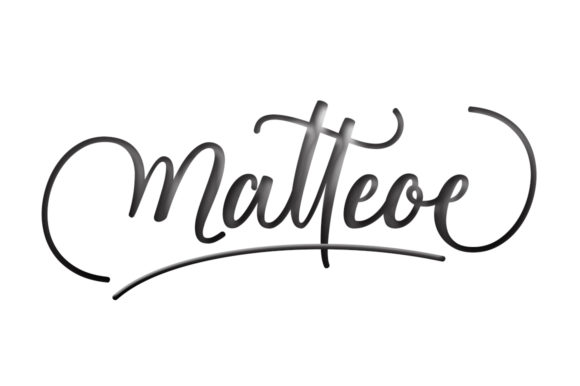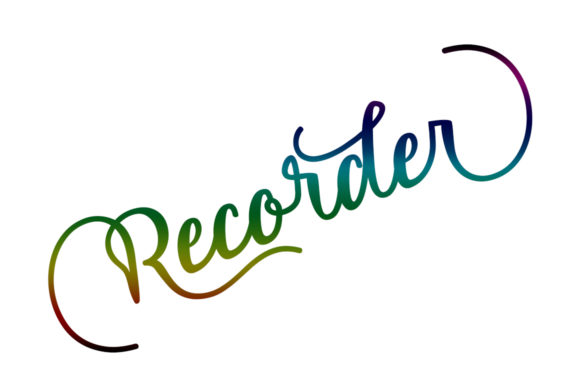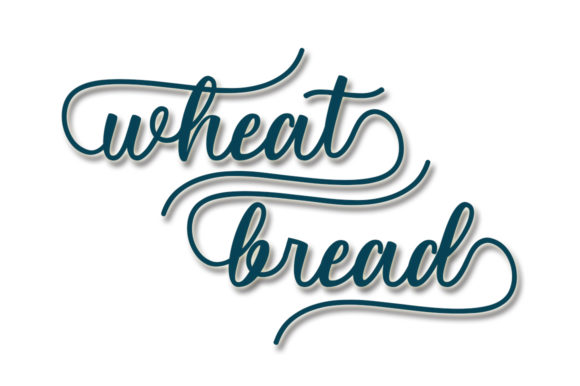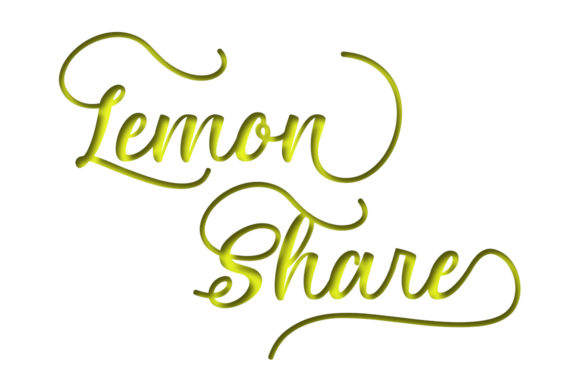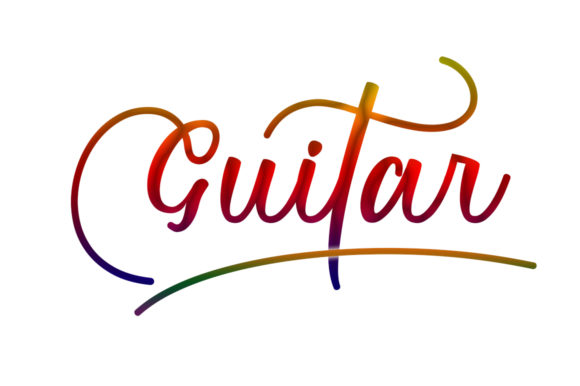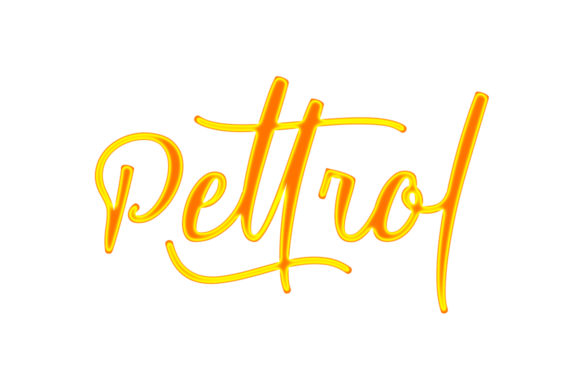
Chokellate Regular Font
About Chokellate Regular Font
Chokellate Regular simplifies elegance into one truly outstanding handwritten font. This font will look outstanding in any context, whether it’s being used on busy backgrounds or as a standalone headline!